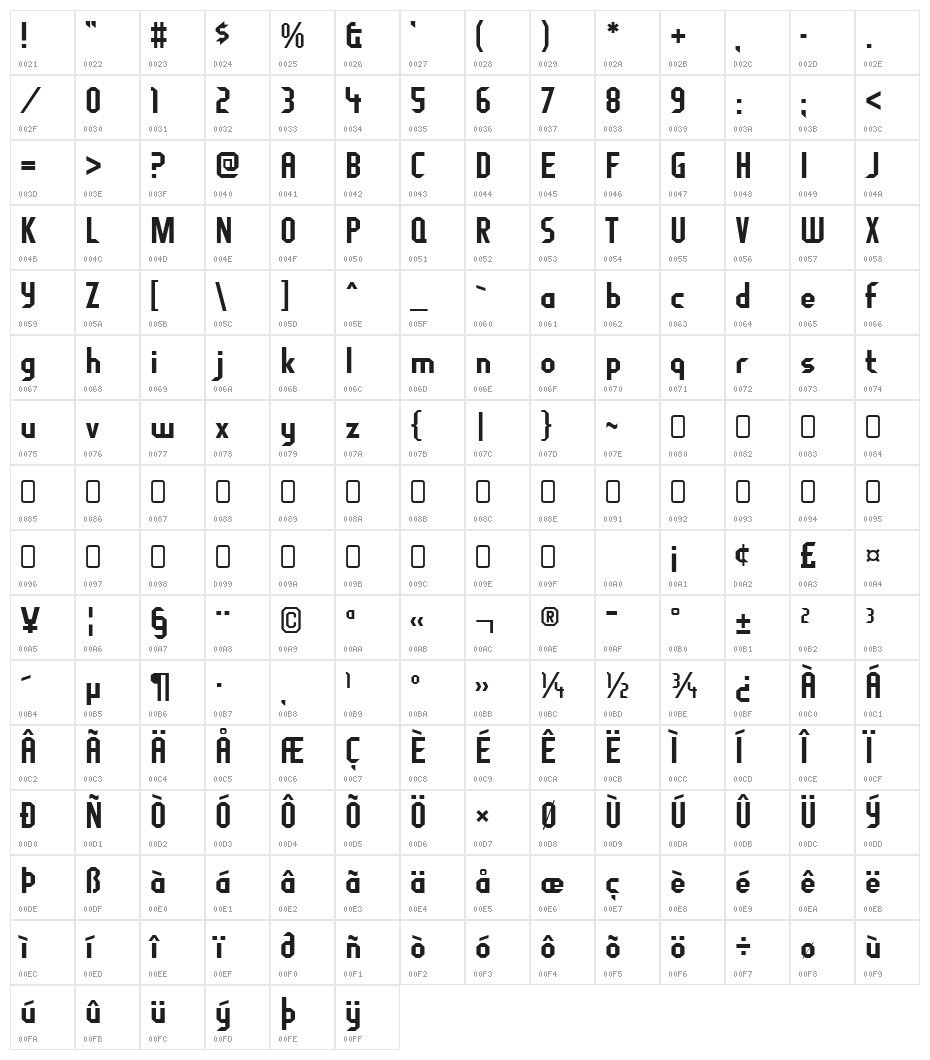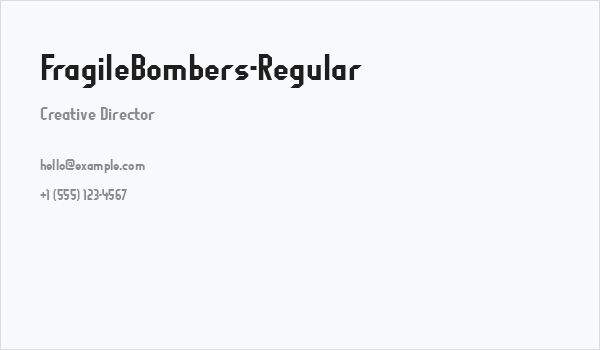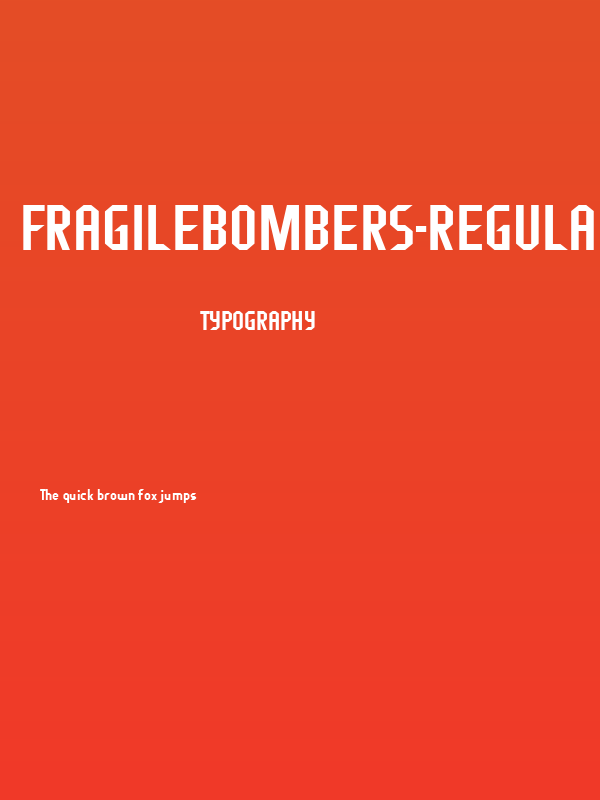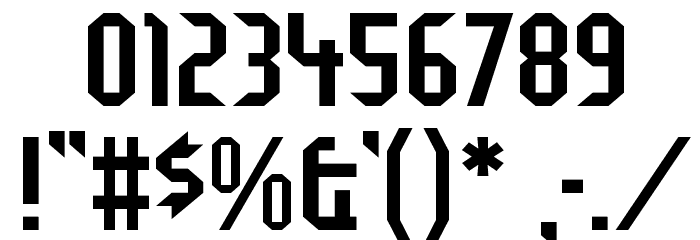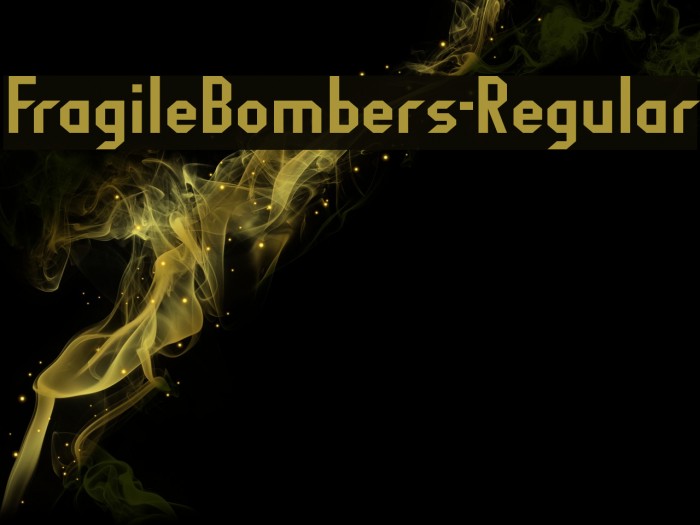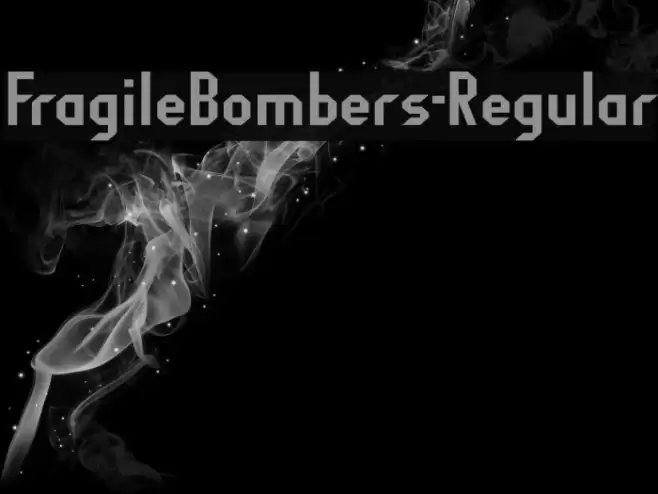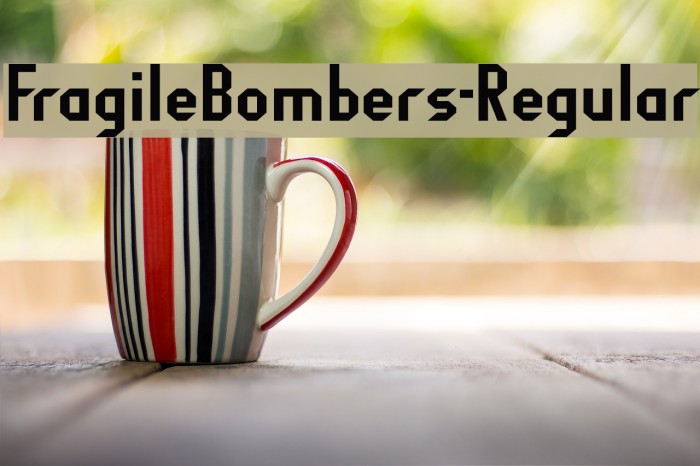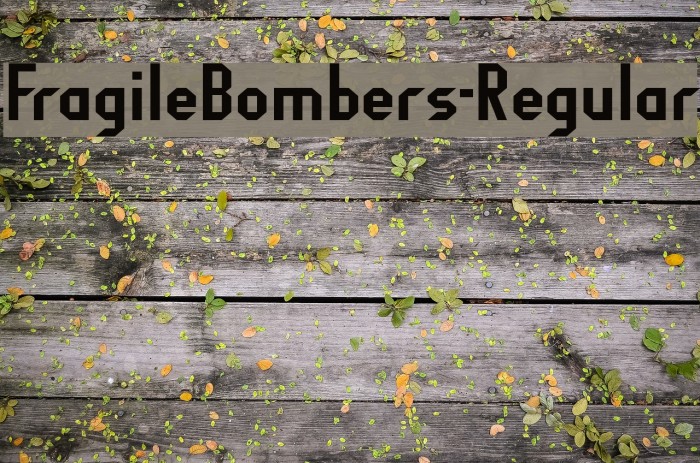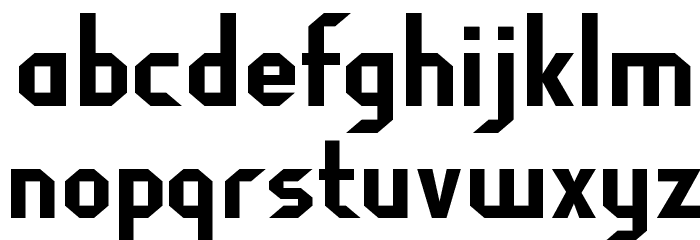
FragileBombers-Regular Font
FragileBombers-Regular Description
This font features a bold, geometric design with sharp angles and a futuristic feel. The uppercase letters are distinct with a blocky appearance, while the lowercase letters maintain a similar style but with slightly softer edges. The numerals are consistent with the angular theme, providing a cohesive look across all characters. Special characters are designed to match the overall aesthetic, making this font ideal for projects that require a modern and edgy touch. The uniformity in stroke width gives it a strong presence, suitable for attention-grabbing headlines or logos.
| Proposed Projects | Ideal for sci-fi themed designs, video game graphics, modern branding, and bold headlines. |